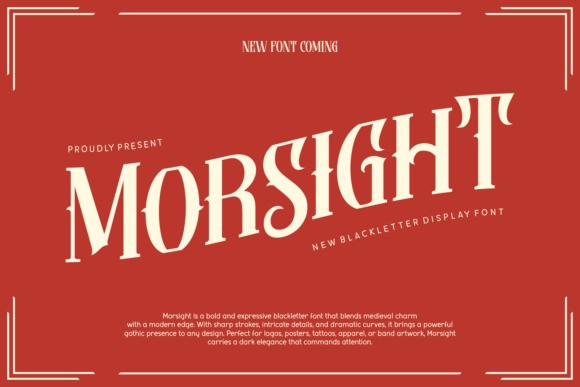
Morsight Font
Morsight Font, a new blackletter display font. The accompanying text describes Morsight as a bold and expressive font that blends medieval charm with a modern edge, making it perfect for logos, posters, tattoos, and apparel that require a powerful gothic presence.